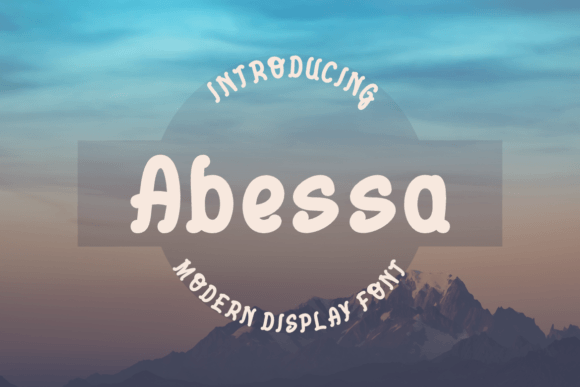
Abessa: A Bold and Authentic Display Font for Modern Branding
Abessa is a modern display font that stands out for its boldness, authenticity, and versatility. Designed with contemporary aesthetics in mind, it offers a strong visual presence that can elevate any branding project. Whether you're working on a logo, t-shirt design, e-sport branding, or other creative endeavors, Abessa provides a unique and impactful typographic solution.
What Makes Abessa Stand Out
At its core, Abessa combines clean lines with a confident, assertive style. The font’s structure is both geometric and organic, giving it a balanced yet dynamic feel. This blend of elements makes it adaptable across various design contexts while maintaining a cohesive identity. Its sharp edges and consistent weight distribution ensure readability even at smaller sizes, which is essential for effective communication in diverse applications.
The font’s character set includes a wide range of glyphs, supporting multiple languages and special symbols. This broad coverage enhances its usability for international projects and ensures that designers can rely on it without needing to switch fonts for different scripts.
Key Characteristics and Strengths
One of Abessa’s most notable strengths is its versatility. It performs well in both digital and print formats, making it a reliable choice for a variety of media. Its bold strokes and high contrast contribute to a striking visual impact, which is particularly useful for headlines, logos, and other attention-grabbing elements.
The font’s consistency across different weights and styles allows for seamless integration into multi-layered design projects. Whether used as a primary headline font or paired with complementary typefaces, Abessa maintains its integrity and clarity. This reliability is crucial for designers who need to maintain a unified look across different platforms and materials.
Real-World Applications and Performance
In practice, Abessa excels in scenarios where a strong visual statement is required. For example, in logo design, its bold nature helps create a memorable and professional impression. When used in t-shirt printing, the font’s clarity ensures that text remains legible even when printed in small sizes or on dark backgrounds.
E-sport branding is another area where Abessa shines. Its energetic and modern appearance aligns well with the fast-paced, high-energy environment of competitive gaming. Whether used in team logos, tournament banners, or merchandise, Abessa adds a layer of professionalism and visual appeal that resonates with target audiences.
For web and app interfaces, Abessa can be used effectively for headings and call-to-action buttons. Its clean design and strong presence make it ideal for drawing attention without overwhelming the user. However, it’s important to consider spacing and line height when using it in longer text blocks, as its boldness may require adjustments to maintain readability.
Quality, Usability, and Flexibility
Abessa is crafted with precision, ensuring that each character is well-proportioned and visually balanced. The font’s quality is evident in its smooth curves, accurate kerning, and consistent stroke widths. These details contribute to a polished and professional appearance that can enhance the overall look of any design.
Who Benefits Most from Abessa
Entrepreneurs and small business owners will find Abessa particularly useful for creating a strong brand identity. Its bold and authentic style helps differentiate their offerings in a crowded market, making it easier to stand out and build recognition.
Marketers and advertisers can leverage Abessa for campaigns that require a strong visual presence. Whether designing social media graphics, advertisements, or promotional materials, the font’s impact can help capture attention and convey messages more effectively.
Designers and creatives working on t-shirt printing, merchandise, or e-sport branding will appreciate the font’s adaptability and clarity. Its ability to perform well in both digital and physical formats makes it a valuable addition to any designer’s toolkit.